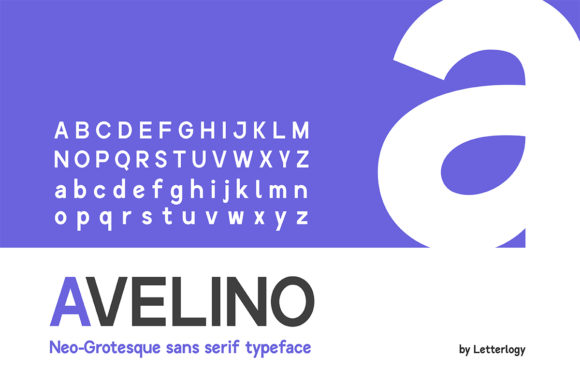
The Elusive Font: A Designer’s Journey with Avelino MTL
I still remember the frustration of working on a project, hours spent searching for the perfect font, only to come up empty-handed. My client wanted a sophisticated, elegant look that would make their brand stand out, but not overpower it. That’s when I stumbled upon Avelino MTL, a distinct, elegant sans serif font that has since become a staple in my design toolkit.
Avelino MTL: A Closer Look
Avelino MTL is a masterfully crafted font that blends traditional influences into a contemporary aesthetic. Its well-balanced Latin details contain distinctive contrasts, making it perfect for designers, crafters, and creative hobbyists looking for a versatile font. With Avelino MTL, you can achieve an exquisite, yet subtle look that’s sure to elevate your designs.
- ✨ Elegant and sophisticated design that’s perfect for luxury brands
- ✅ Well-balanced Latin details with distinctive contrasts
- 💻 Highly versatile and adaptable to various design contexts
- 🎨 Beautiful OpenType features and glyphs for added creativity
- 🤔 Limited availability of certain characters and symbols
- ⚠️ May not be suitable for very small font sizes or body text
The Story Behind Avelino MTL
Avelino MTL was designed with the goal of creating a font that would blend traditional influences with a modern aesthetic. The designer aimed to create a font that would be both elegant and versatile, suitable for a wide range of design applications. While the real story behind Avelino MTL may be unknown, its design and functionality suggest a deep understanding of typography and design principles.
| Font Name | Avelino MTL Font |
| Author | letterlogy |
| What is Avelino MTL? | Avelino MTL is a distinct, elegant sans serif font that blends traditional influences into a contemporary aesthetic. |
| Is Avelino MTL suitable for body text? | While Avelino MTL is a beautiful font, it may not be suitable for very small font sizes or body text. It’s best used for headlines, titles, or larger text. |
| Does Avelino MTL support OpenType features? | Yes, Avelino MTL supports OpenType features, glyphs, and stylistic alternates, making it a versatile font for designers. |